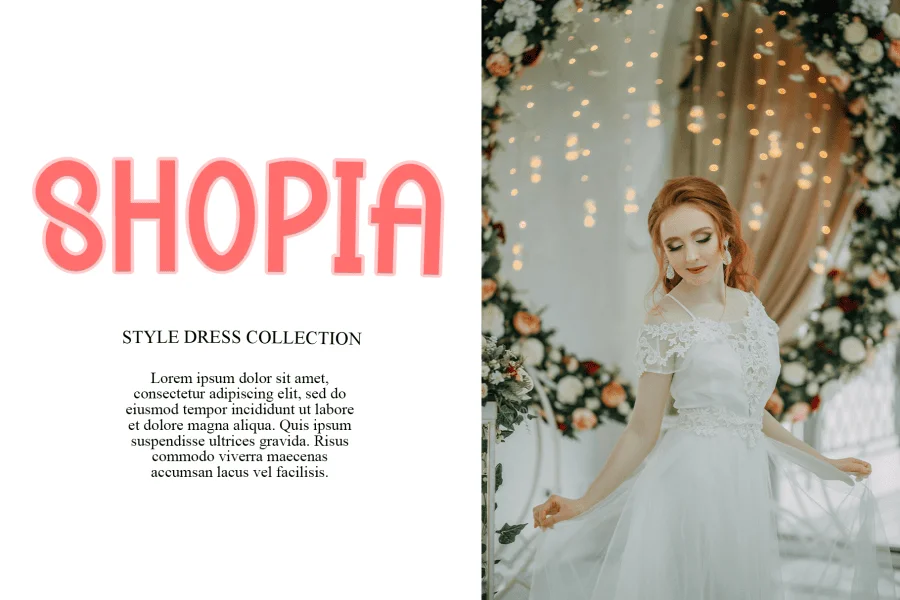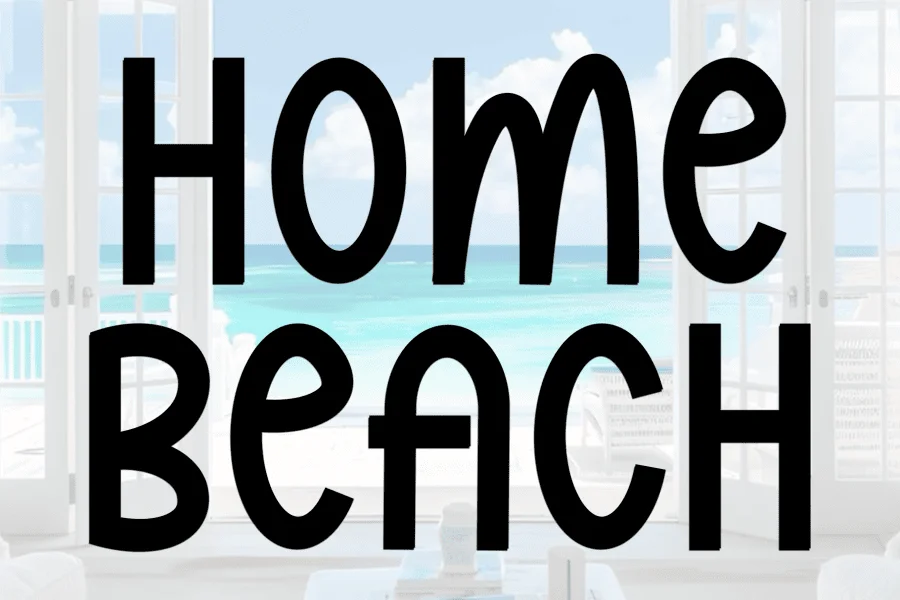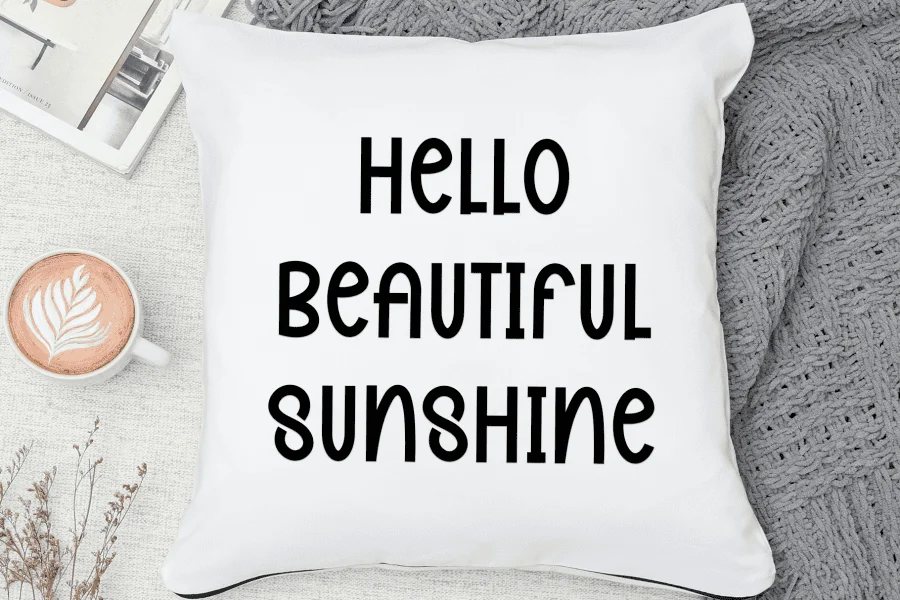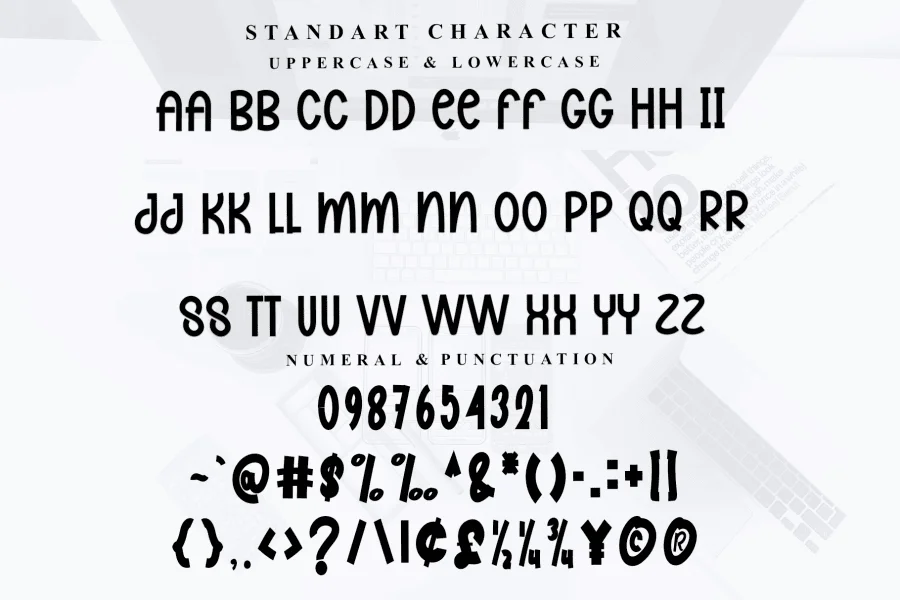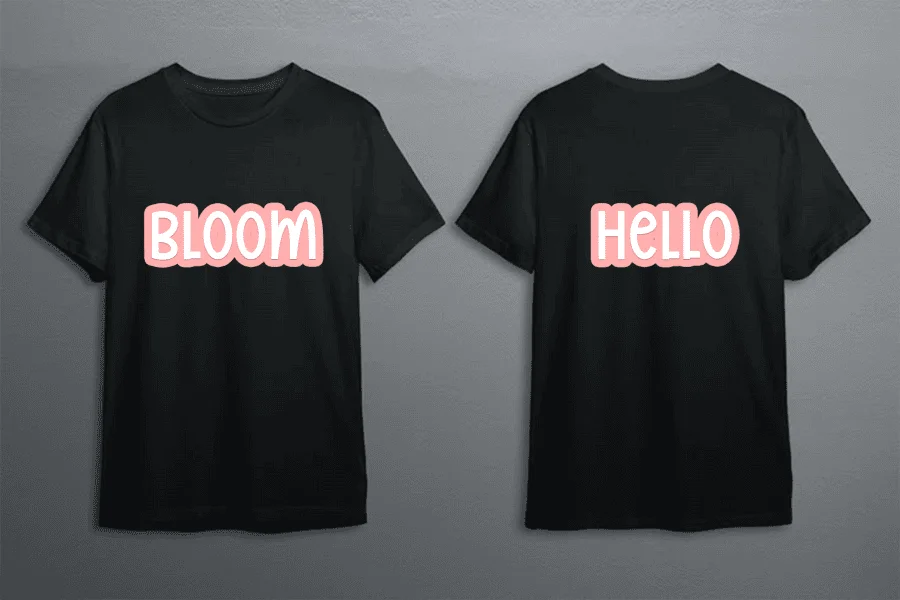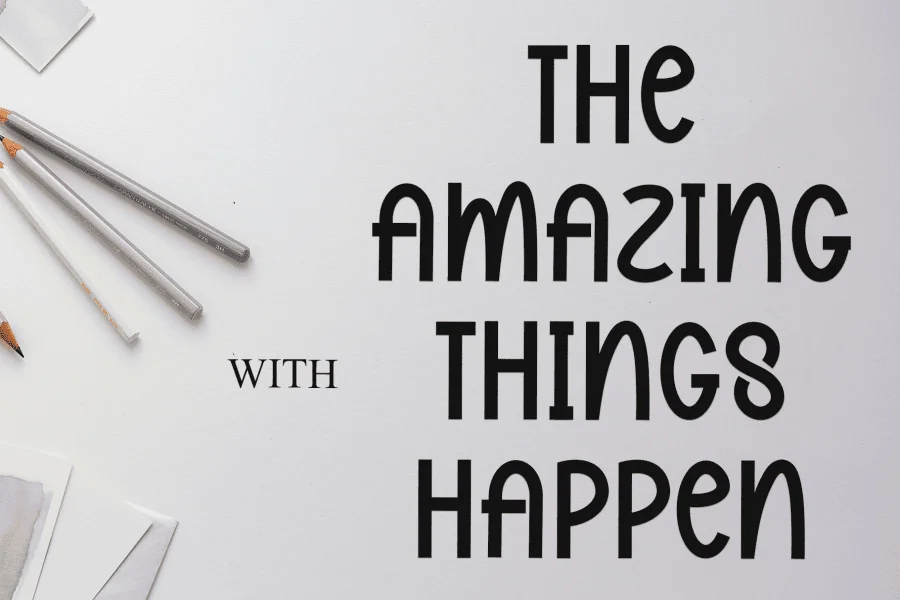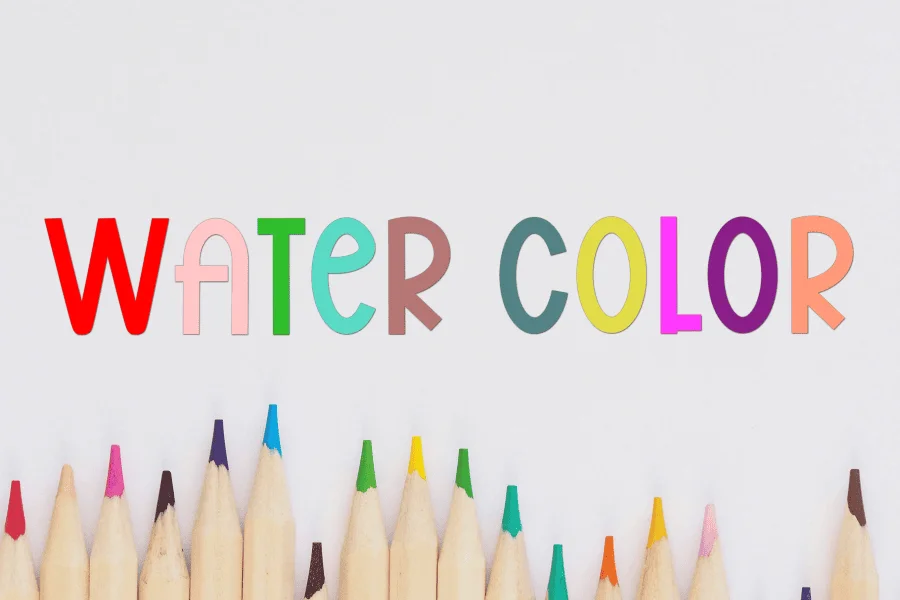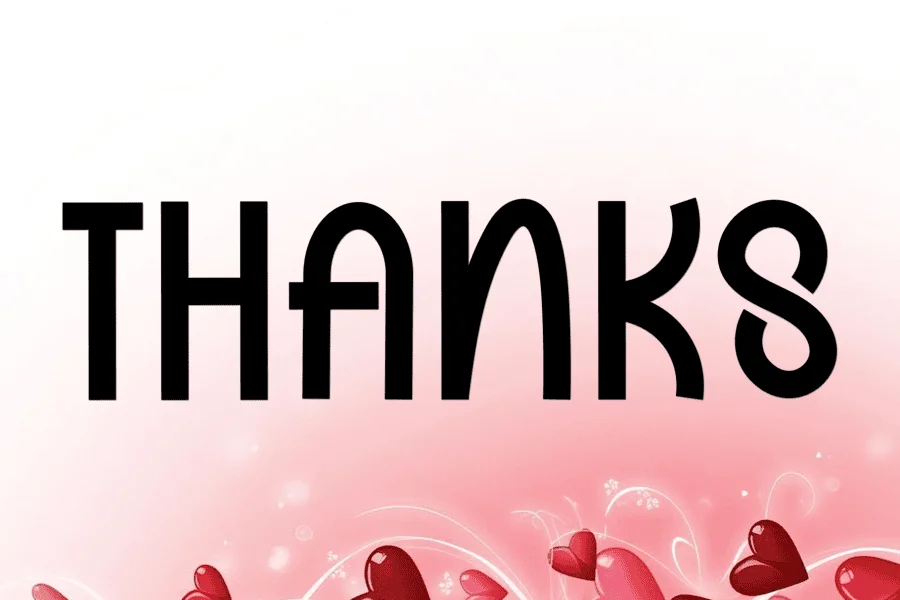
Season Valentine is a playful, modern display typeface defined by its condensed proportions. The overall construction relies on a hand-drawn, casual rhythm that is both friendly and approachable. Its uniform stroke weight gives it a clean, monolinear appearance, while the subtle variations in letter heights and bouncy baselines create a cheerful, animated texture that feels personal and organic.
This typeface is perfectly suited for lighthearted branding, casual apparel graphics, and playful home decor items like throw pillows and tote bags. Its soft, friendly nature also makes it an excellent choice for romantic or celebratory themes, such as wedding dress collection promotions, Valentine's Day greeting cards, and cheerful social media graphics.